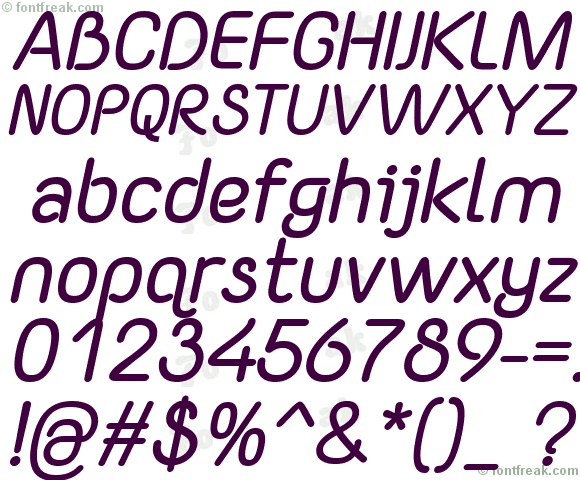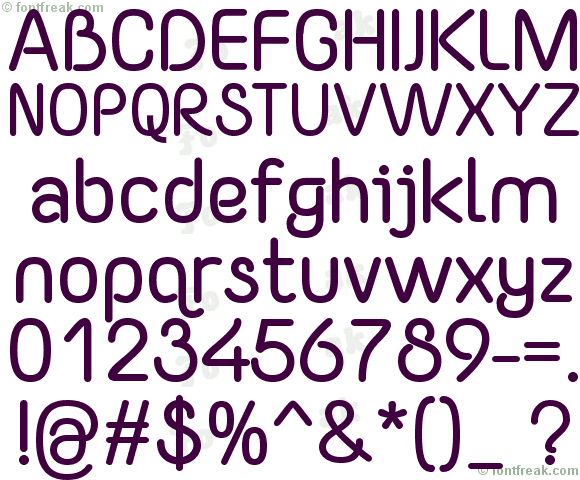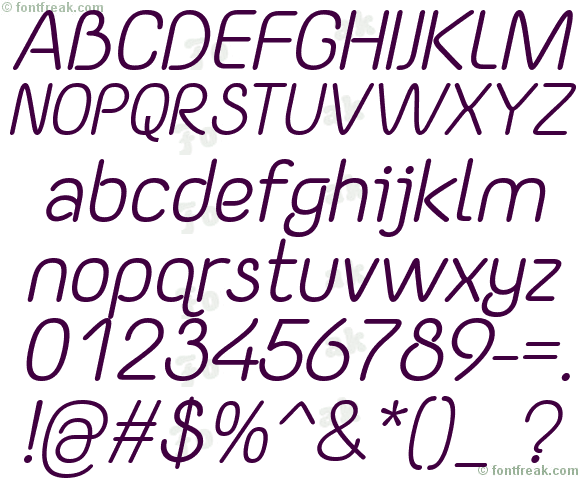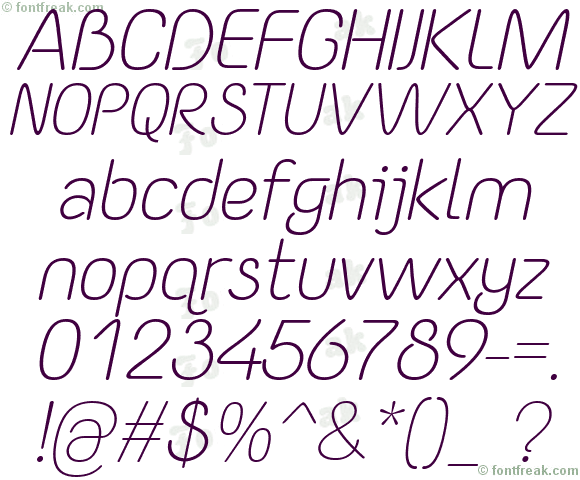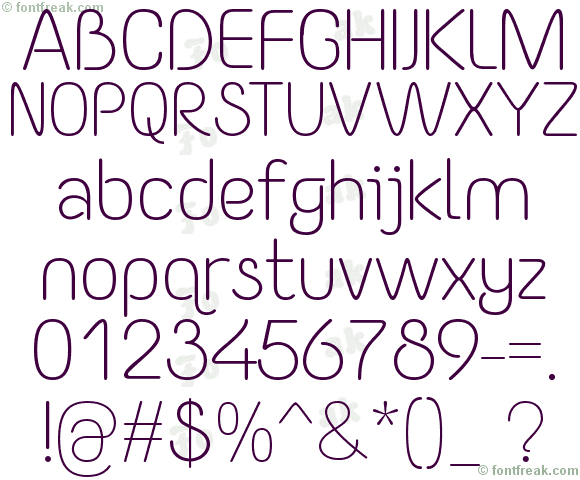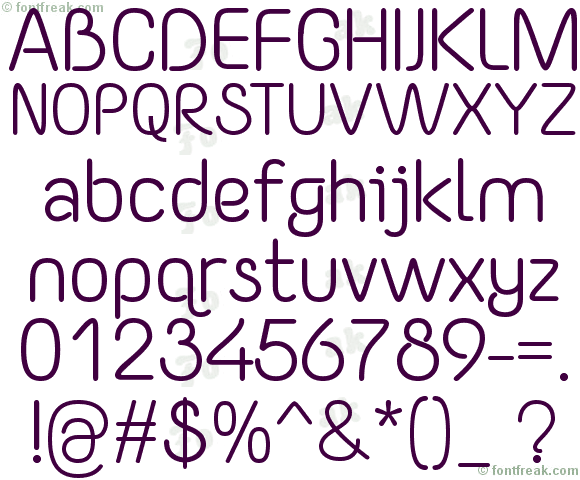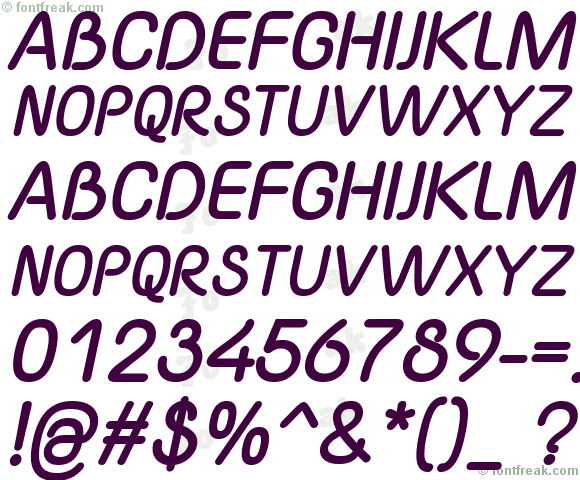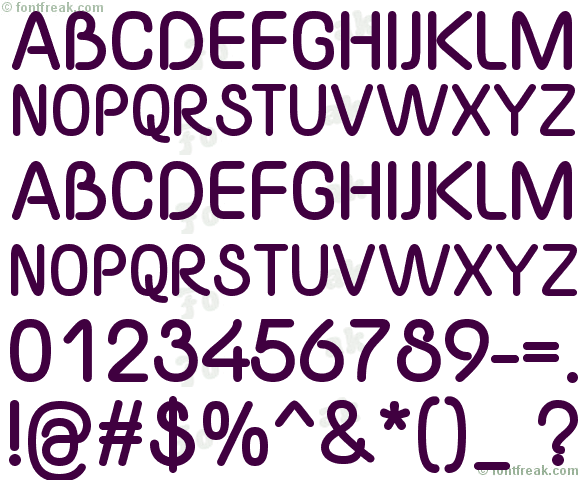
Yaahowu Ono Niha
Yaahowu Bold
Yaahowu Thick Italic Italic
Yaahowu Light
Yaahowu Italic Italic
Yaahowu Thick
Yaahowu Bold Italic Italic
Yaahowu Light Italic Italic
Yaahowu Ono Niha, designed by Situjuh Nazara in 2013, is a modern sans-serif font that showcases a unique blend of bold and light styles, making it versatile for various design applications. The font features thick strokes that provide a sense of strength and presence, balanced by a smooth italic variation that adds a touch of elegance. Its clean lines and consistent stroke weight offer excellent readability, while the slight spacing between characters enhances legibility, making it suitable for both digital and print media.
This font is ideal for a variety of use cases, including wedding invitations that seek to convey a contemporary feel, movie posters where bold headlines capture attention, and restaurant menus that require a stylish yet readable typeface. Additionally, it can be effectively utilized in branding for small businesses aiming to establish a modern identity, as well as in social media graphics that need to stand out in a crowded landscape.
Targeted towards graphic designers, small business owners, and content creators, Yaahowu Ono Niha provides the flexibility needed for diverse projects. Its unique combination of boldness and lightness makes it a go-to choice for those looking to create impactful visual communications.